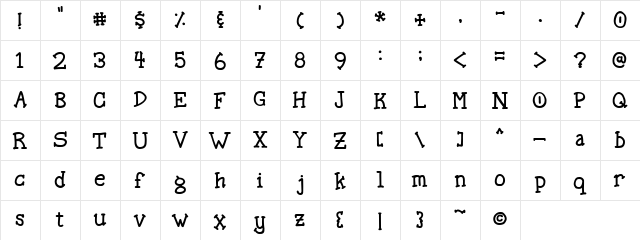
Spellstone Regular
Design Context for Spellstone Typeface
Spellstone offers clean, dependable letterforms without strong stylistic allegiance, making it a practical choice for designers who need flexibility.
Pro Tip: Use Spellstone in both headline and body roles to test its range before committing to a single application.